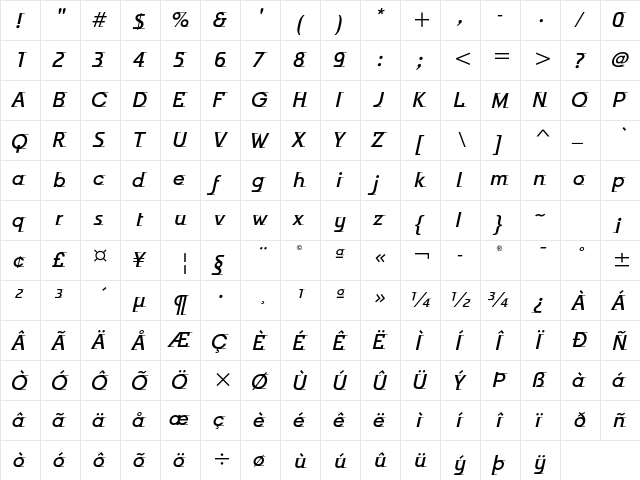
Odyssee ITC Std Medium Italic
| Designer | Roselyne Besnard and Michel Besnard |
Design Context for Odyssee ITC Std Typeface
Odyssee ITC Std is a composed and adaptable typeface that performs quietly and consistently across a wide range of design contexts. Its italic angle brings a sense of urgency and motion to the letterforms.
Pro Tip: Try Odyssee ITC Std for annotation and caption copy alongside an upright companion — the contrast in angle creates a dynamic but ordered typographic system.